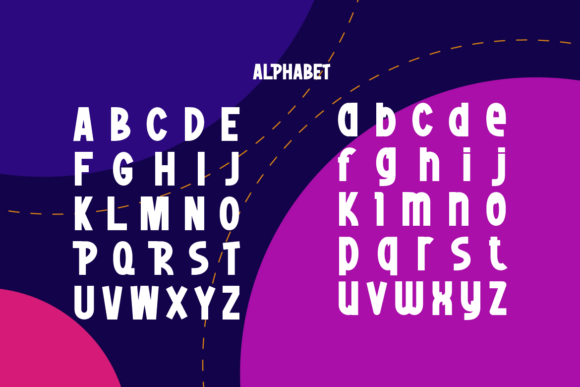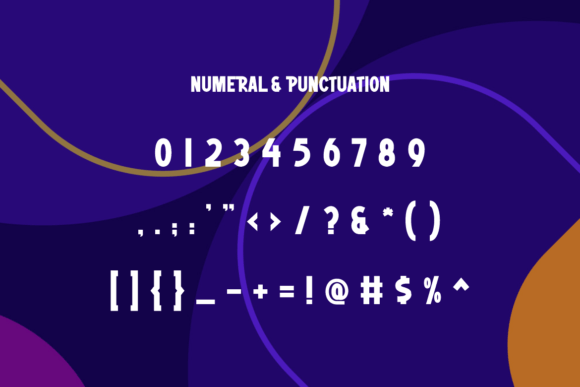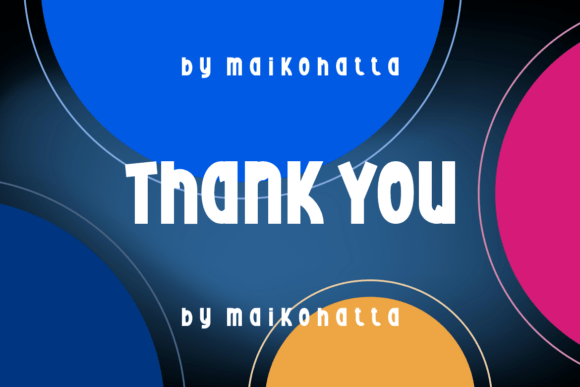
The Ultimate Display Font: Unleashing the Power of Bokegon
Have you ever been stuck on a design project, searching for that perfect font to bring your vision to life? I recall a particularly frustrating experience while working on a logo design for a trendy new coffee shop. The client wanted a bold, eye-catching font that would stand out on their merchandise and social media. After hours of scouring font libraries, I stumbled upon Bokegon – a bold and authentic display font that instantly elevated my design.
An Honest Review of Bokegon
- ✨ Versatility: Bokegon is suitable for a wide range of branding projects, from logos and t-shirt printing to esports and more.
- ✅ Bold and Authentic: This font exudes confidence and energy, making it perfect for designs that need to make a statement.
- 💥 Attention-Grabbing: Bokegon’s unique character set and bold style ensure that your design will stand out in any context.
While Bokegon is an exceptional font, there are a few minor considerations to keep in mind:
- ⚠️ Legibility at Small Sizes: As with many bold fonts, Bokegon may become less legible at very small sizes. It’s best used at larger sizes where its unique character set can shine.
- 🤔 Limited Use Cases for Body Text: Due to its bold nature, Bokegon is not ideal for body text or lengthy paragraphs. Stick to headings, titles, and short phrases for maximum impact.
- Experiment with OpenType features, such as glyphs and stylistic alternates, to add visual interest to your design.
The Designer Inspiration Behind Bokegon
Bokegon’s design is inspired by the world of sports and high-energy events. Imagine a fusion of athletic typography and edgy, urban aesthetics – that’s Bokegon in a nutshell. The font’s creator aimed to craft a bold, attention-grabbing typeface that would excel in a variety of contexts, from logo design to merchandise.
Q: What type of projects is Bokegon best suited for?
A: Bokegon excels in branding projects that require a bold, eye-catching font, such as logos, t-shirt printing, esports, and more.
Q: Can I use Bokegon for body text?
A: While Bokegon is not ideal for lengthy paragraphs, it can be used for short phrases or headings. For body text, consider a more legible font.
Q: Does Bokegon support OpenType features?
A: Yes, Bokegon supports OpenType features, including glyphs and stylistic alternates, which can add visual interest to your design.
Q: Is Bokegon suitable for digital and print designs?
A: Absolutely! Bokegon’s bold style and clear character set make it suitable for both digital and print designs.